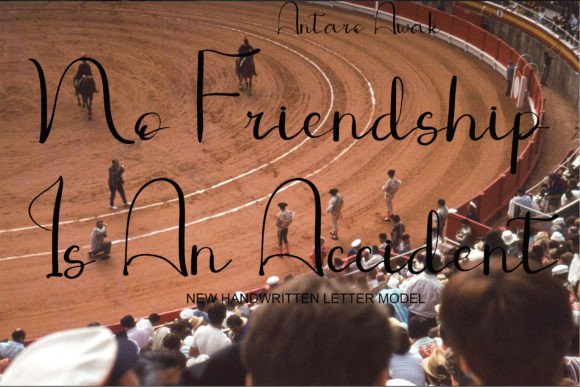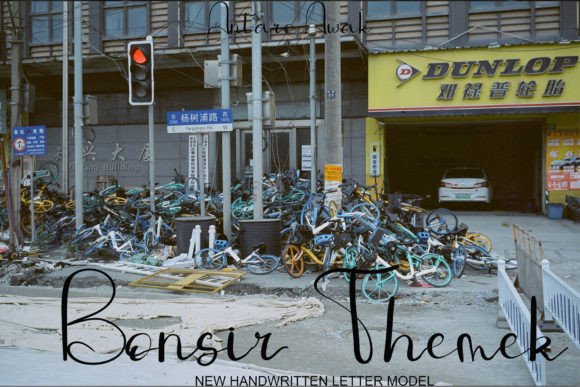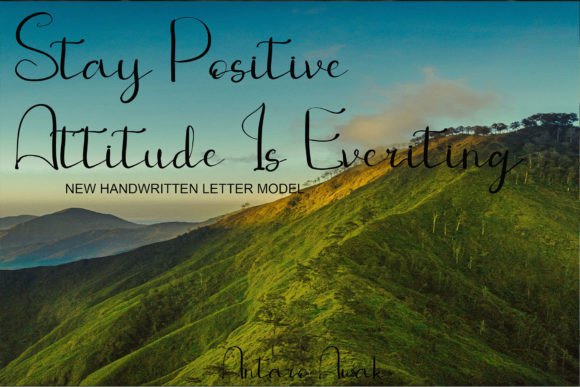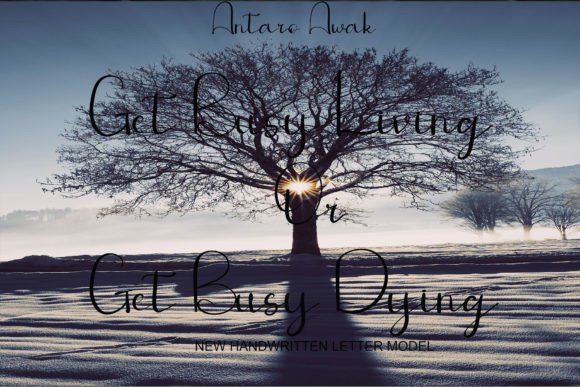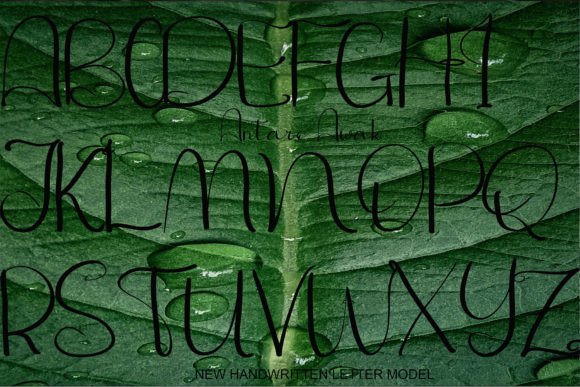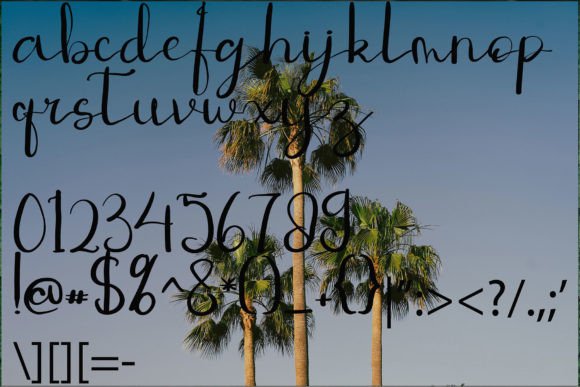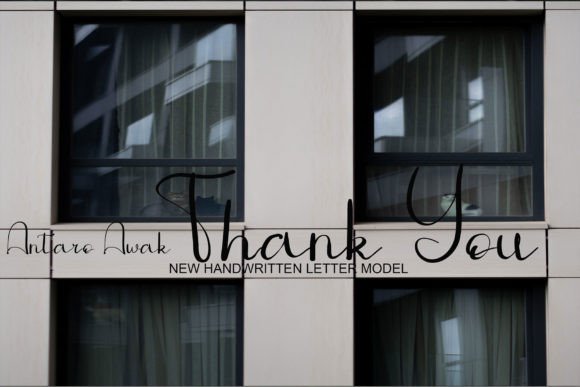
Antaro Awak Font
About Antaro Awak Font
Introducing ANTARO AWAK, a font crafted by hand with precision using a pen tablet. Its simplicity is a key feature, making it versatile for various applications such as websites and advertising. Despite its unassuming appearance, this font exudes a cool and stylish vibe, proving that simplicity can indeed be a powerful design choice.
The uniqueness of ANTARO AWAK lies in its meticulous creation, born from the strokes of a pen tablet. The simplicity in its design is intentional, allowing for a seamless integration into diverse digital platforms. It serves as a testament to the idea that simplicity, when done right, can be a powerful tool for conveying a modern and stylish aesthetic.
In the realm of digital communication, ANTARO AWAK stands out as a font that combines simplicity with a cool and contemporary style. Its minimalist design doesn’t compromise on visual impact, making it suitable for a range of contexts, including websites and promotional materials.
Whether you’re designing a sleek website interface or crafting eye-catching advertisements, ANTARO AWAK proves to be a reliable choice. Its cool and stylish demeanor adds a touch of modernity to the text, ensuring that your content communicates effectively and does so with a sense of sophistication.
Consider implementing ANTARO AWAK in various digital designs to achieve a clean and stylish look. Its simplicity allows for adaptability across different visual elements, providing a cohesive and modern visual identity.
In summary, ANTARO AWAK is more than just a font; it’s a carefully crafted tool for enhancing digital communication. Handwritten with a pen tablet, its simplicity and cool, stylish aura make it a valuable asset for designers, advertisers, and anyone seeking a modern touch for their digital projects. Whether you’re creating a website, promotional content, or any digital design, ANTARO AWAK is ready to bring simplicity and style to the forefront.